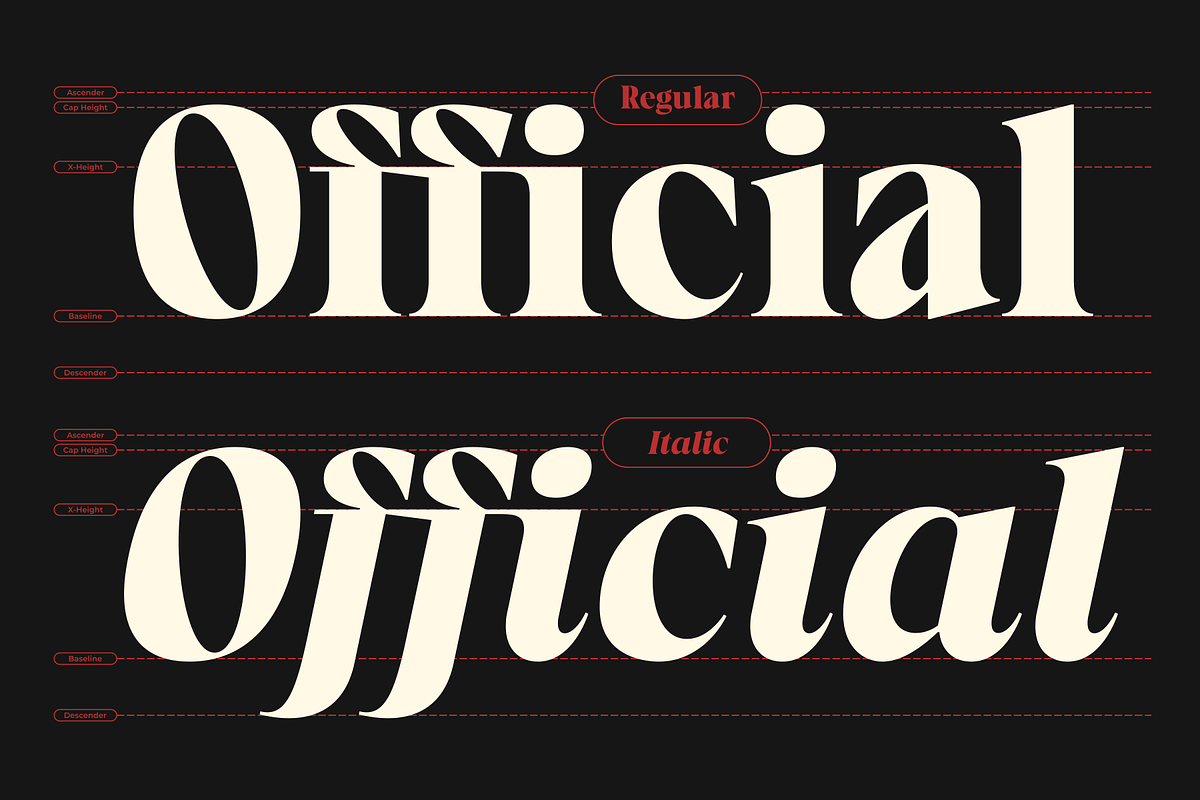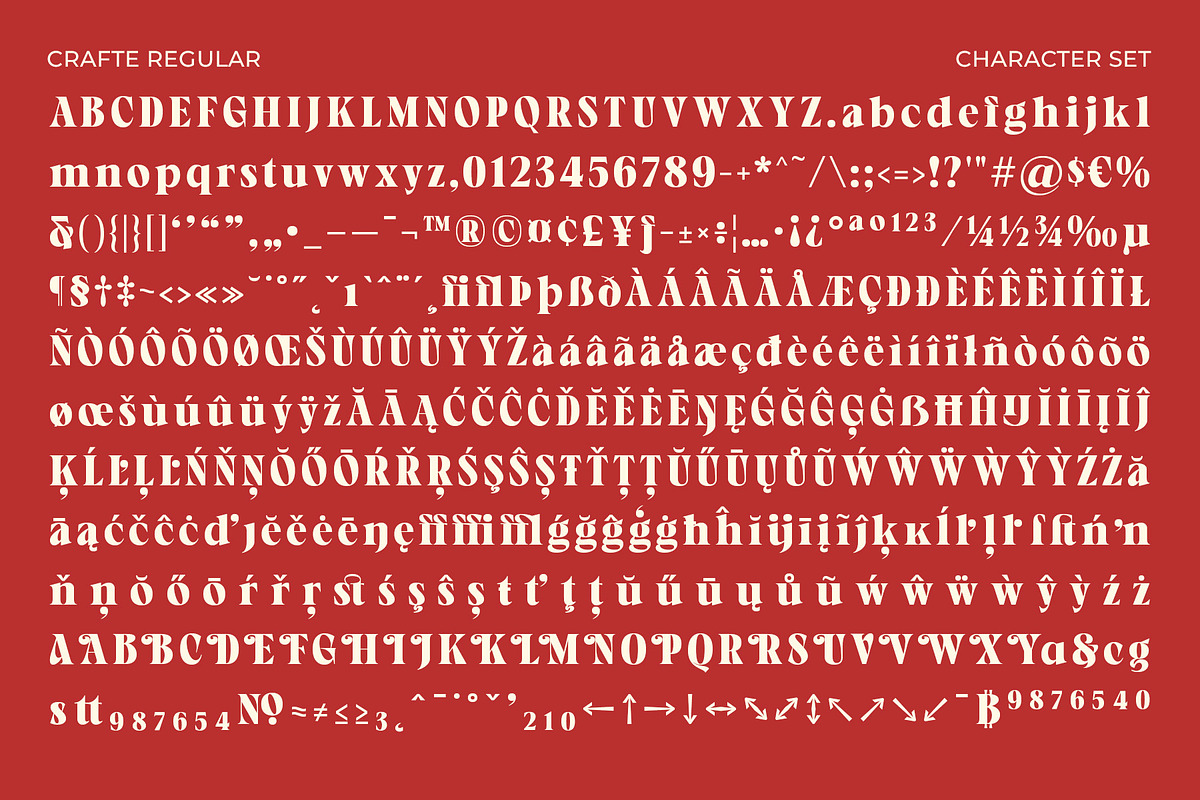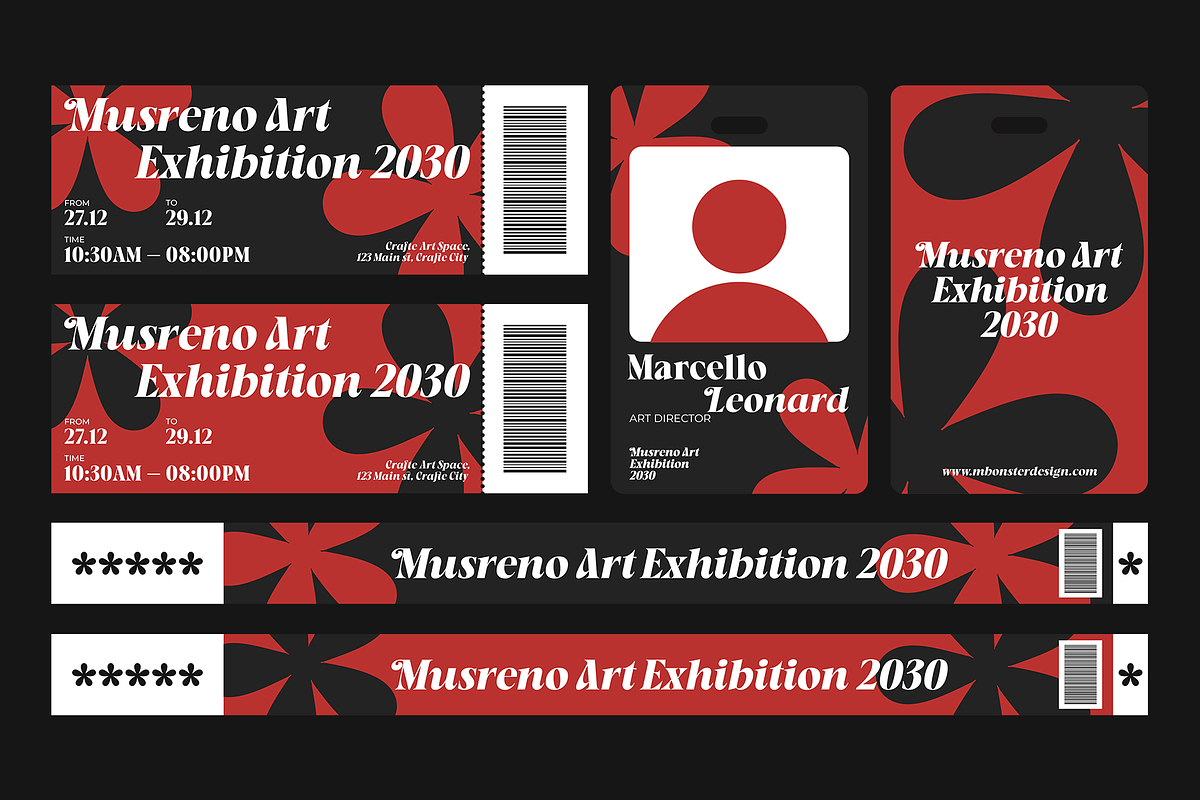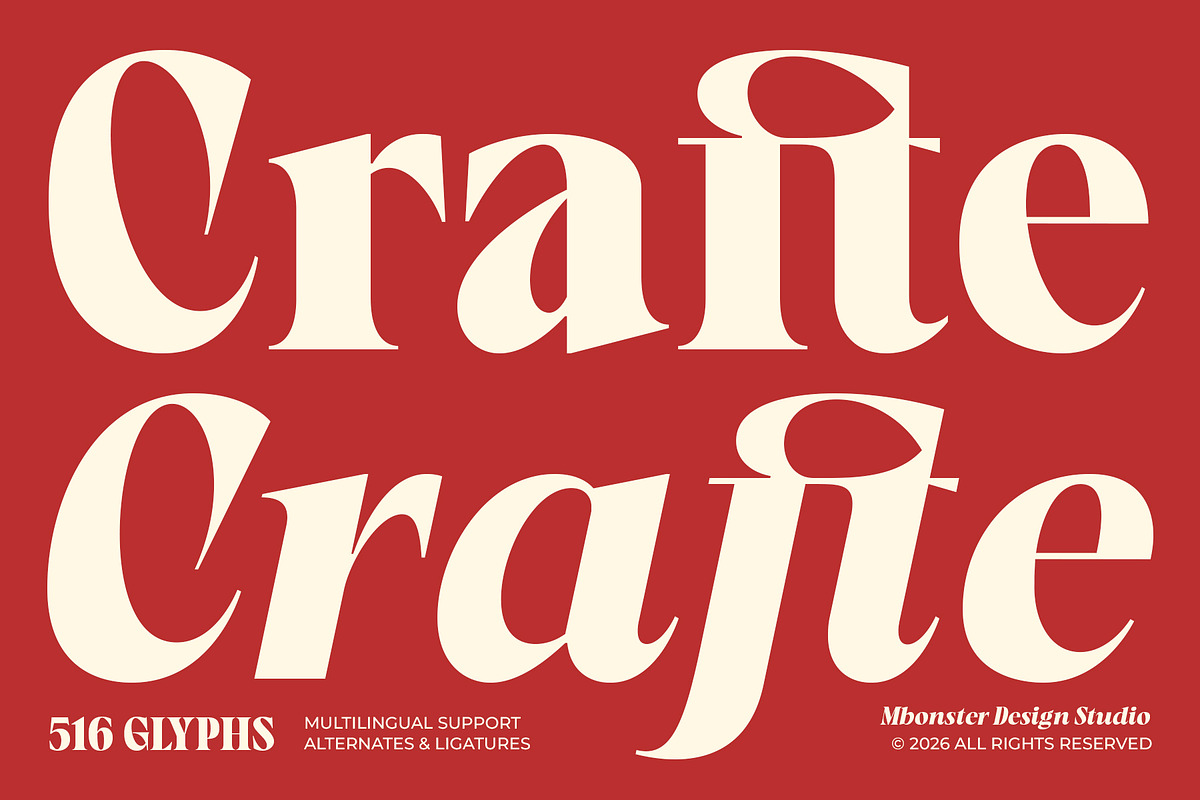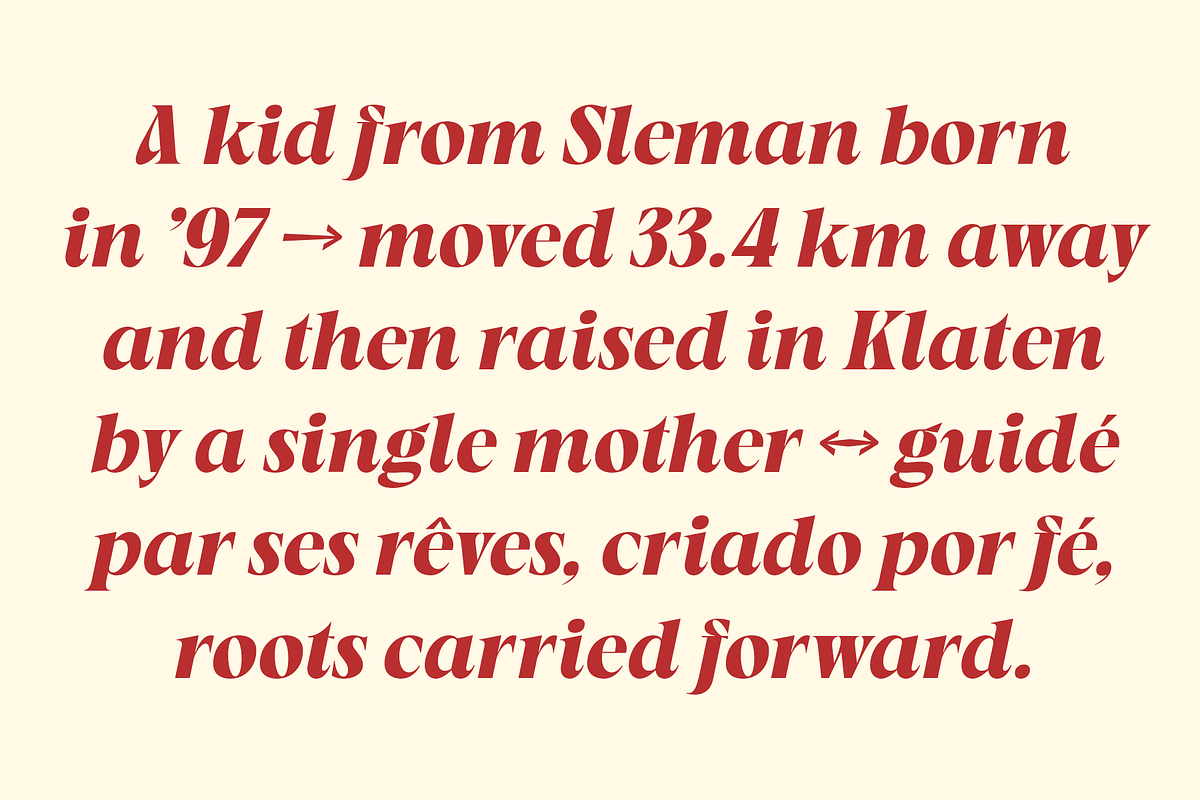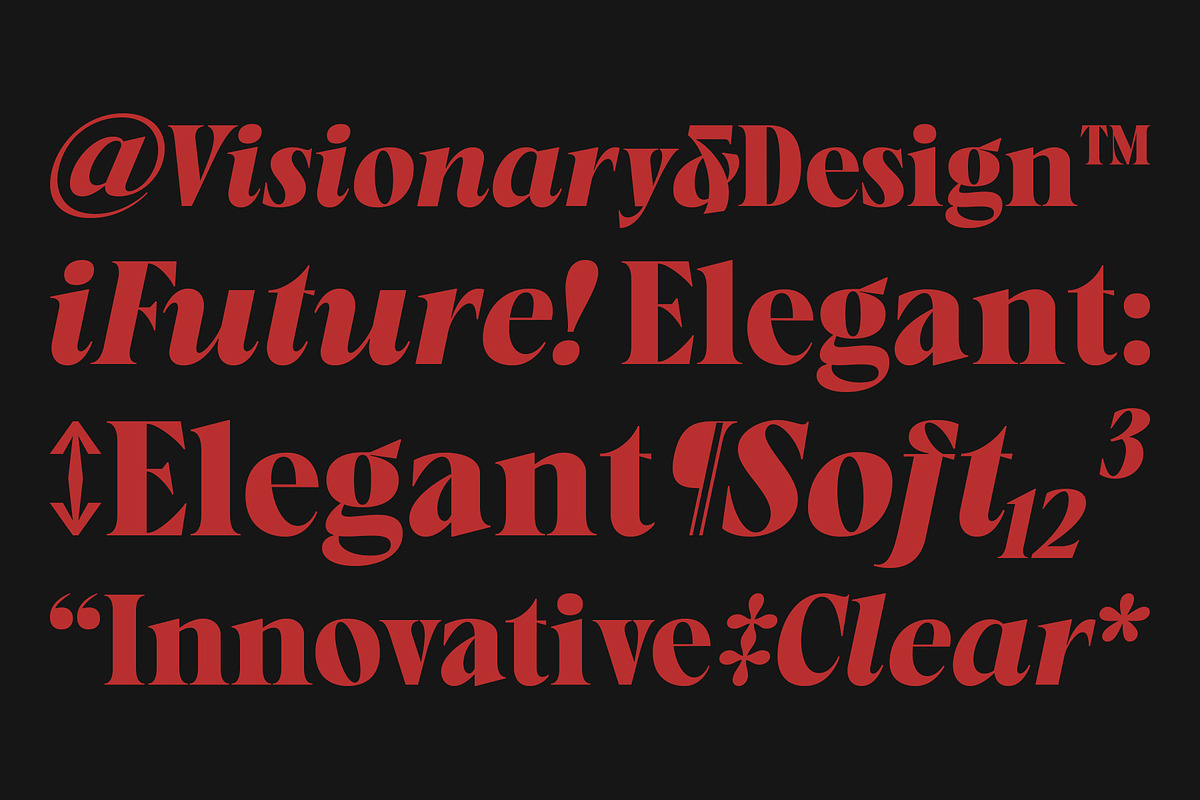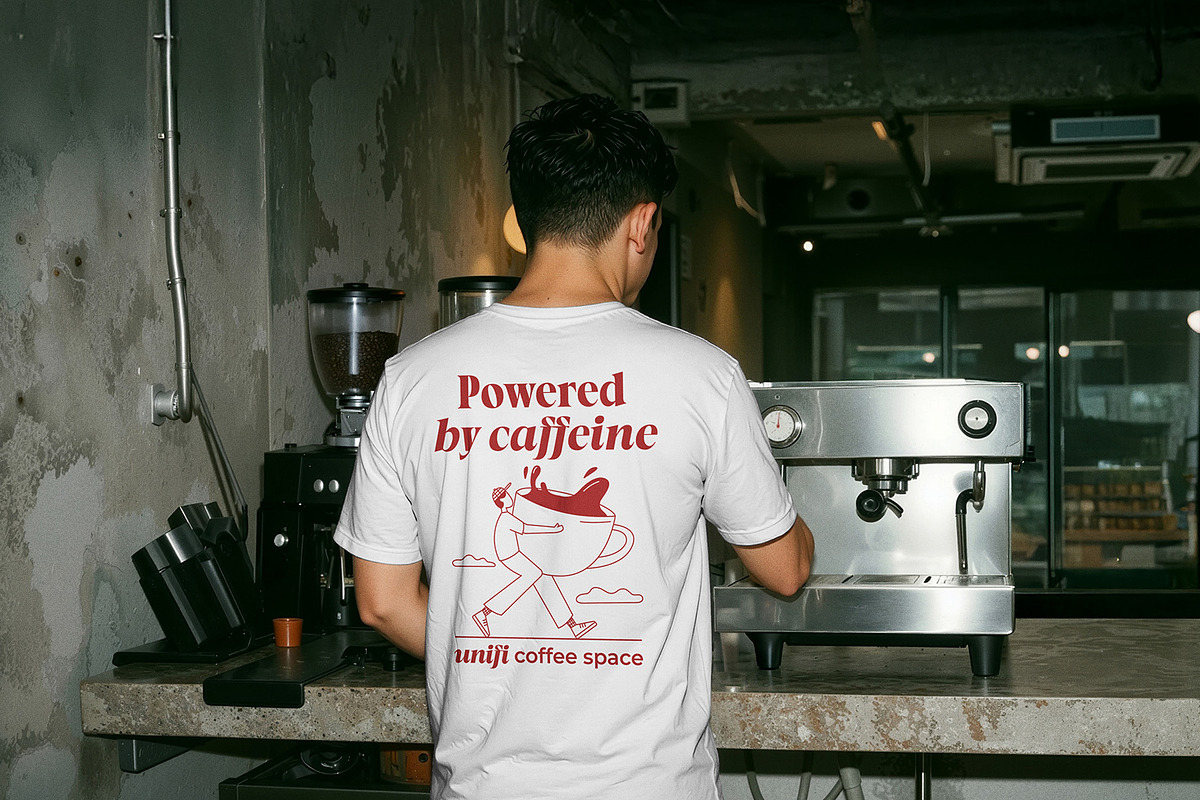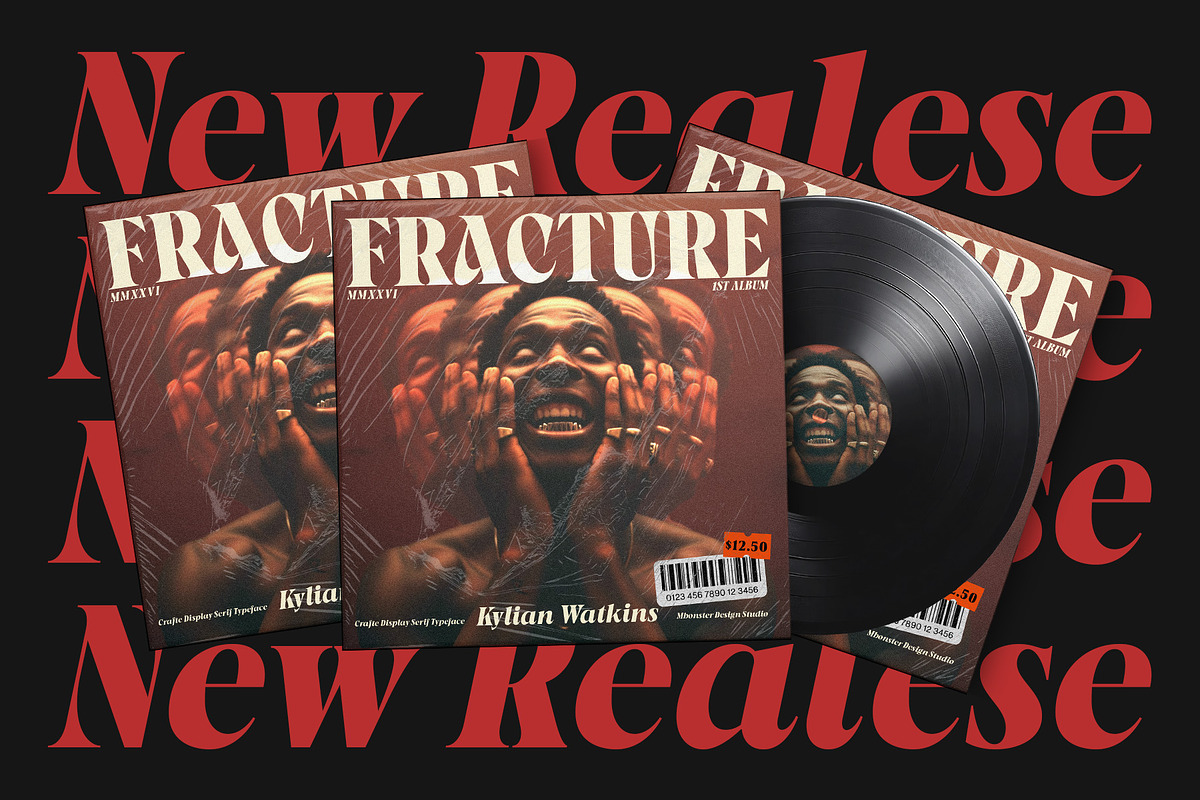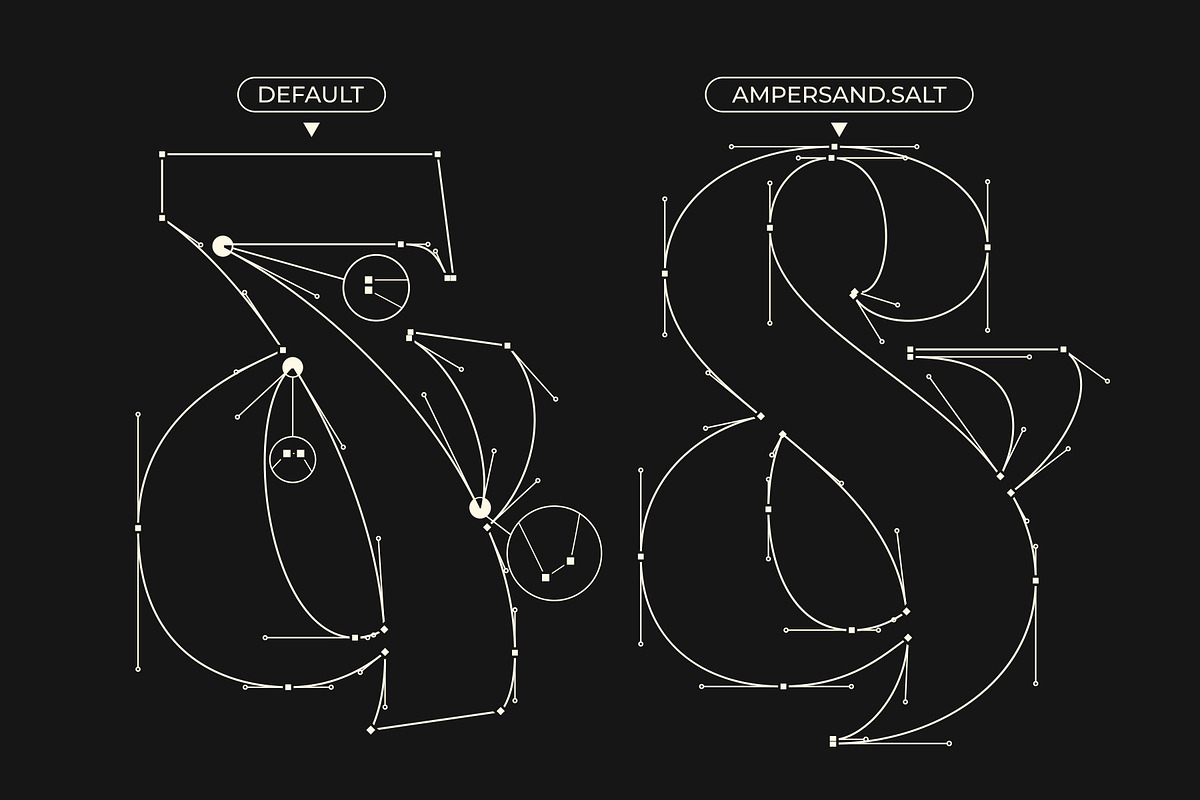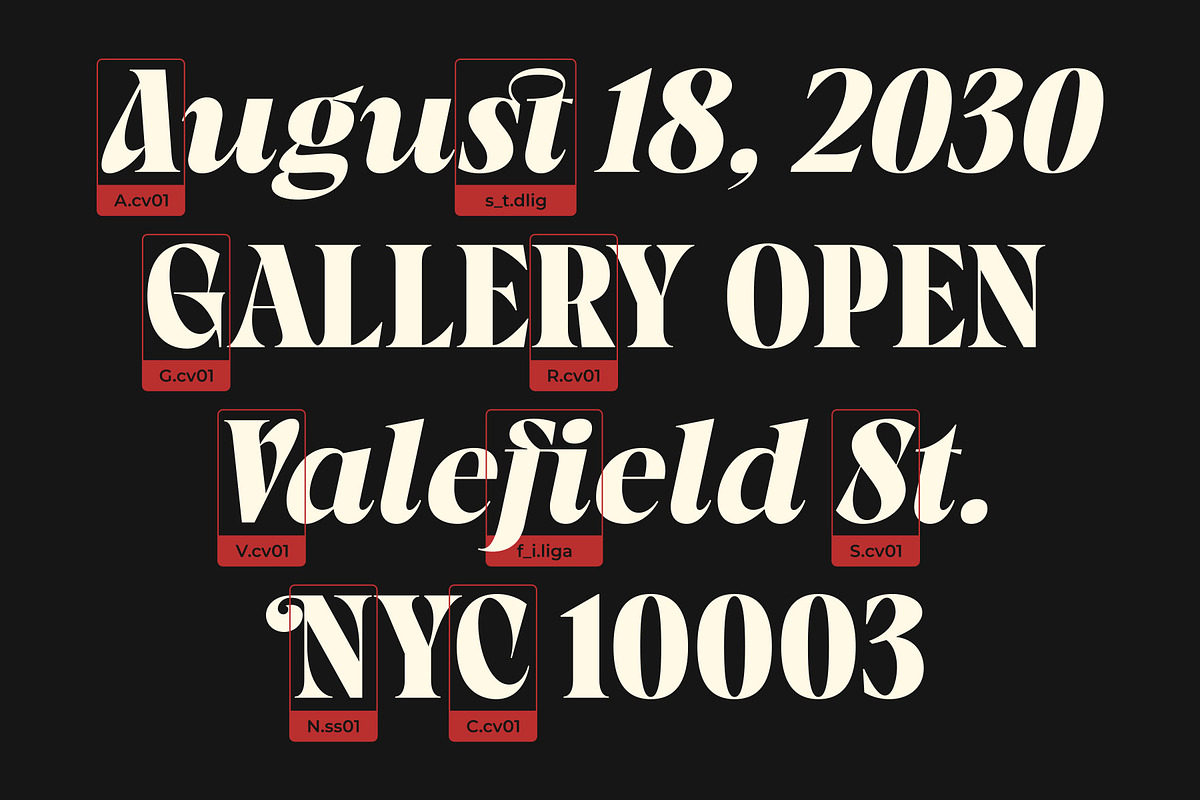
Crafte - Expressive Modern Serif
Crafte: Expressive Modern Serif Typeface for Editorial and Branding
Crafte is an expressive modern serif designed for a confident editorial look with a contemporary feel. Its high contrast, controlled curves, and sharp serif details give it a fashion-inspired yet classic tone. Ideal for headlines and branding, it works best at large sizes—such as magazines, posters, packaging, covers, café identities, and lifestyle campaigns. Pair it with a clean sans or use its italics and alternates to create a refined, modern typographic statement.
- Expressive modern serif design with high contrast, crisp serifs, and regular and italic styles
- Display-first performance suited to headlines, branding, posters, packaging, and cover layouts
- Extensive glyph set including uppercase, lowercase, numerals, punctuation, and symbols (516 glyphs)
- Stylistic alternates and ligatures for controlled variation across wordmarks and titles
- Multilingual support covering a wide range of international languages